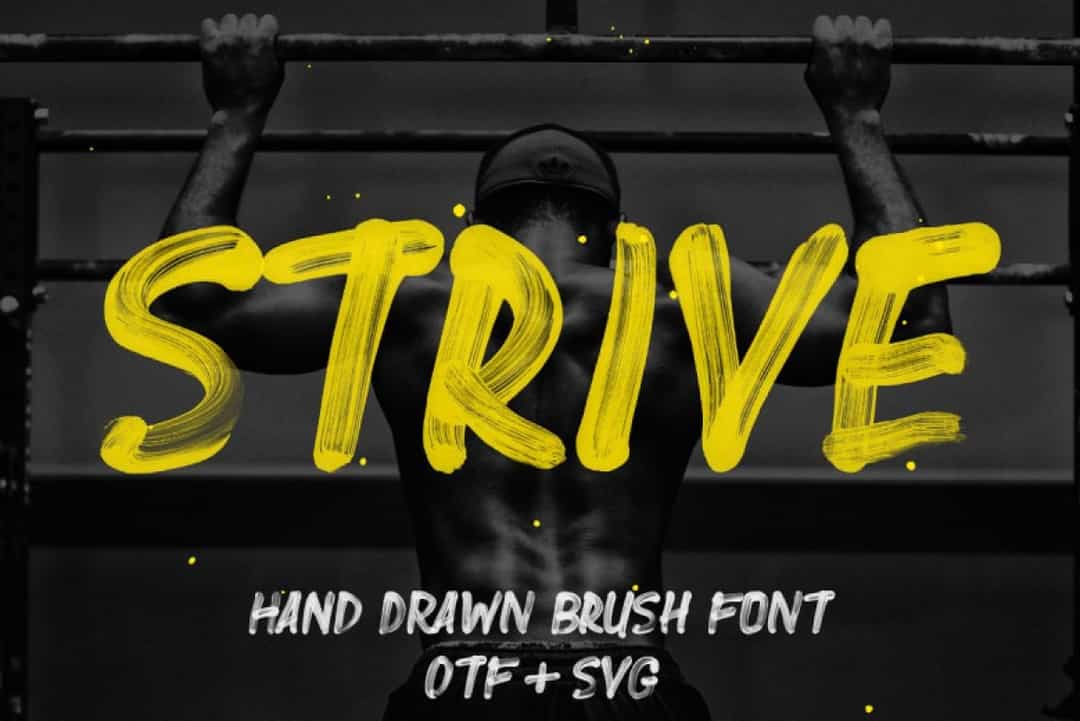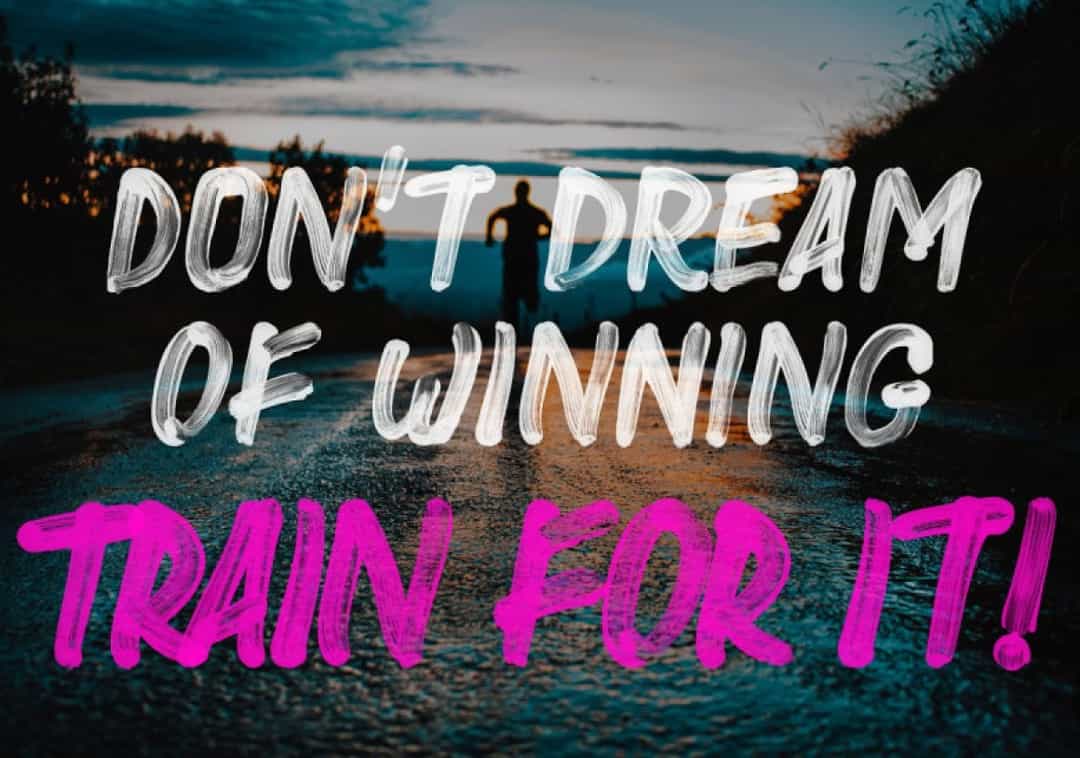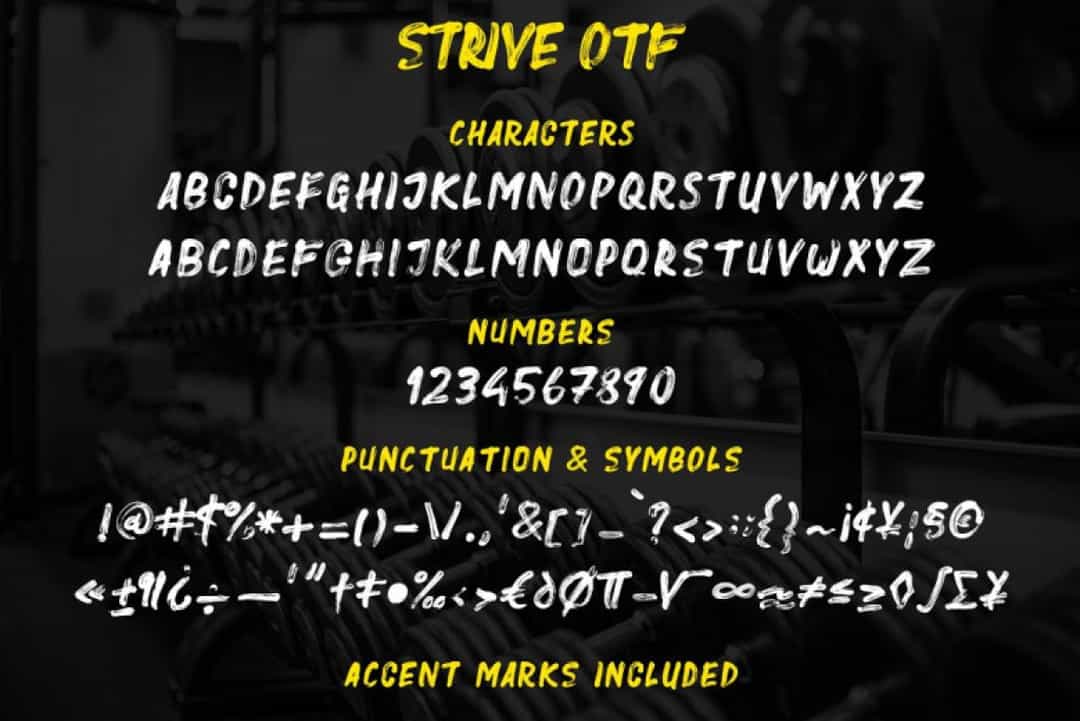
Strive is a straightforward handwritten brush script font available in regular. This all-caps font features one set of letters to create an authentic handwritten design. Plus, Strive comes equipped with the traditional OTF font!